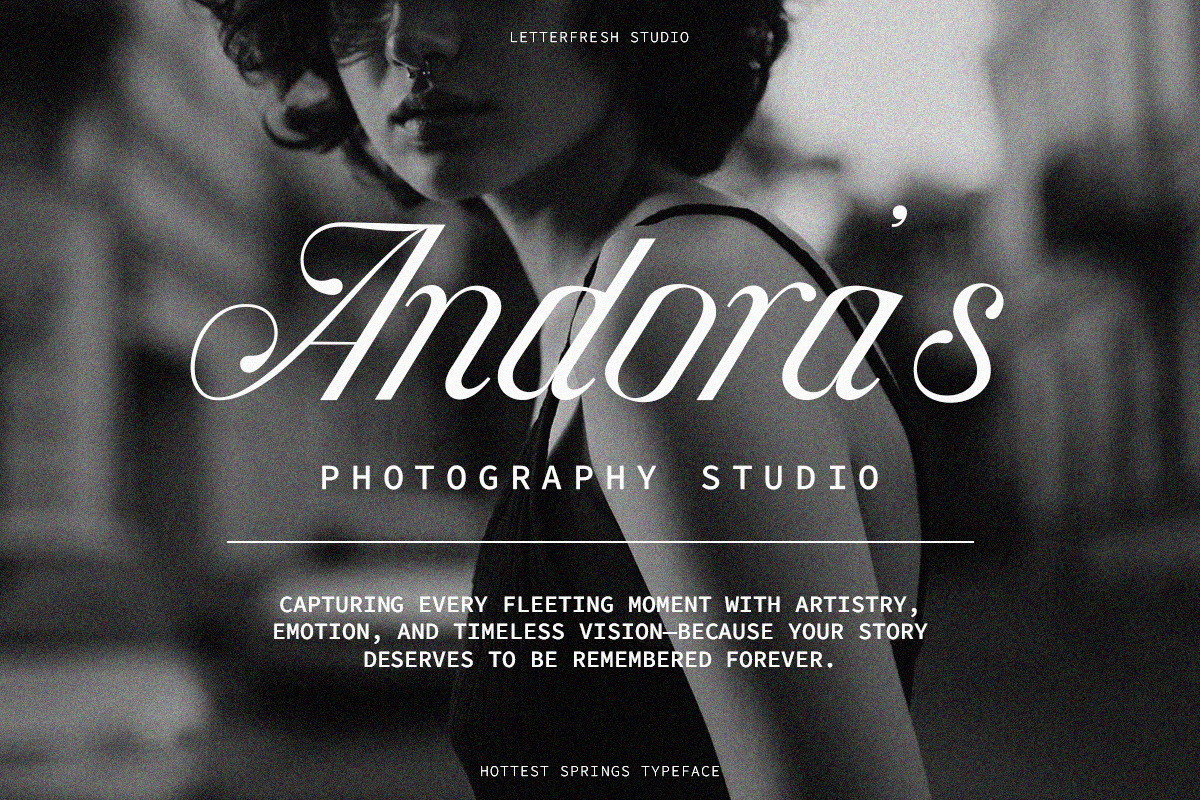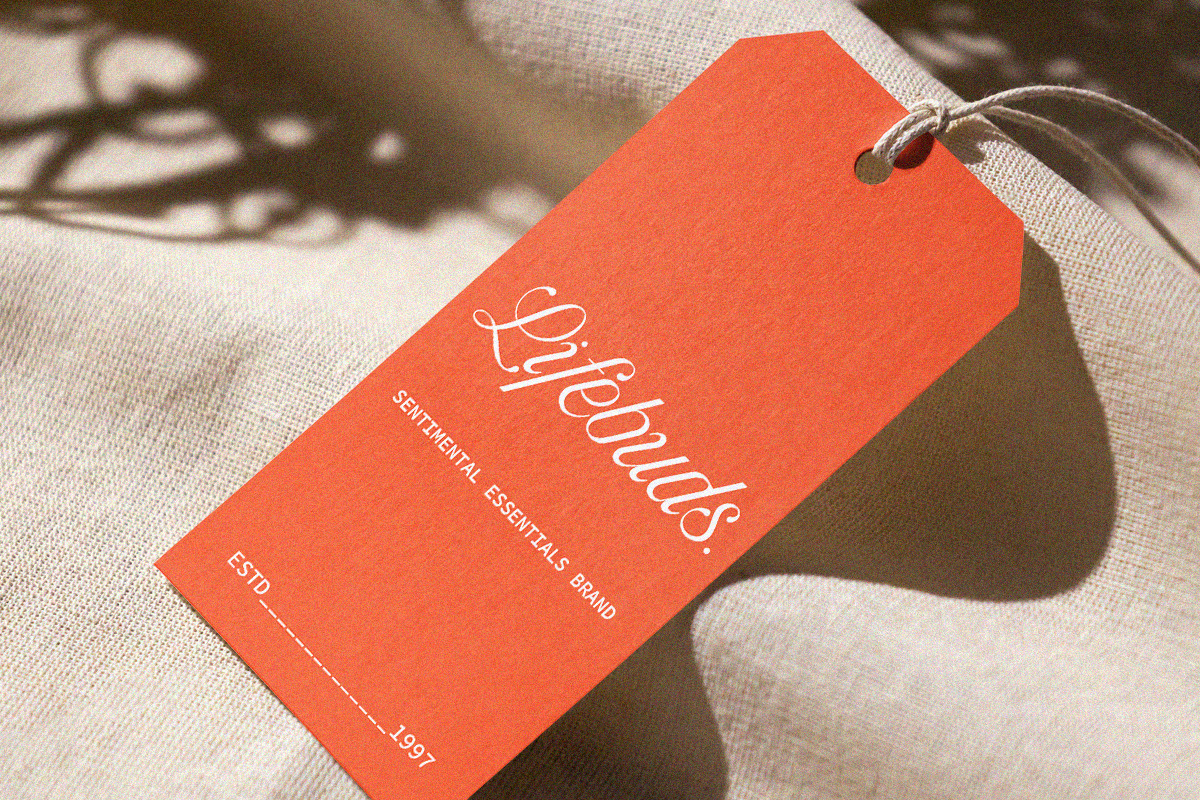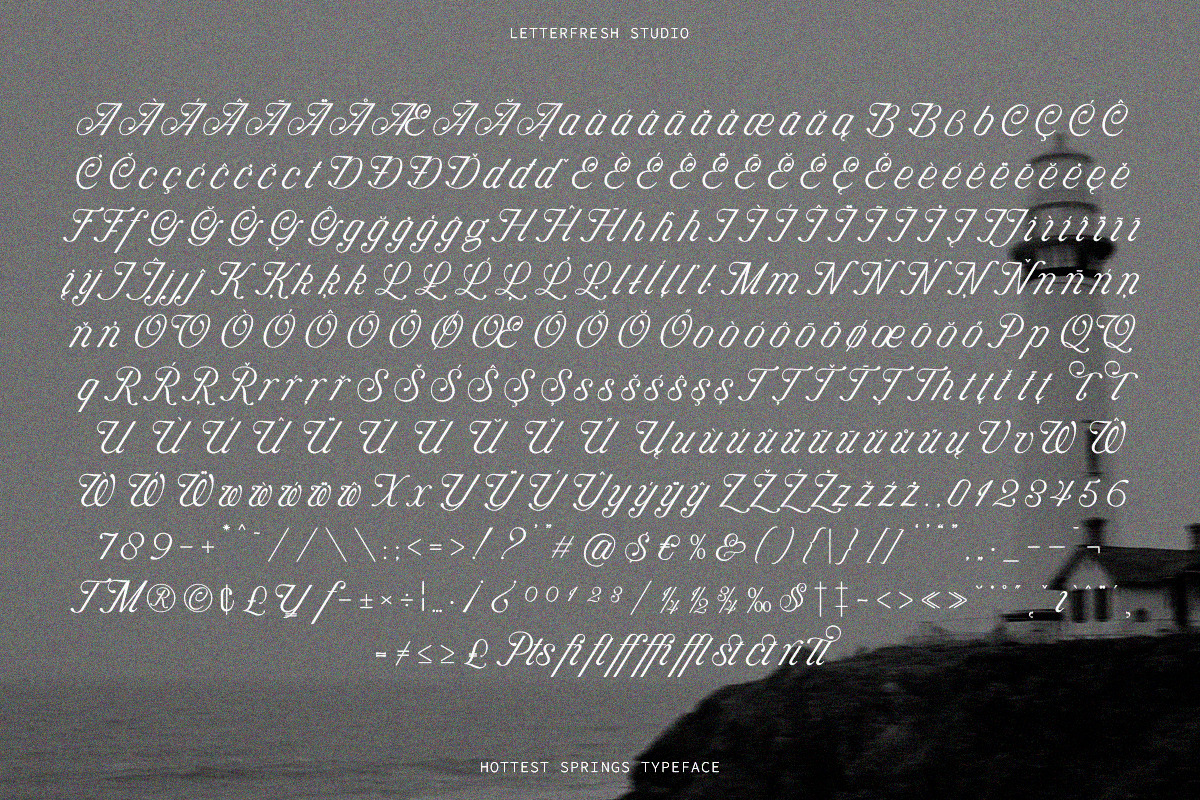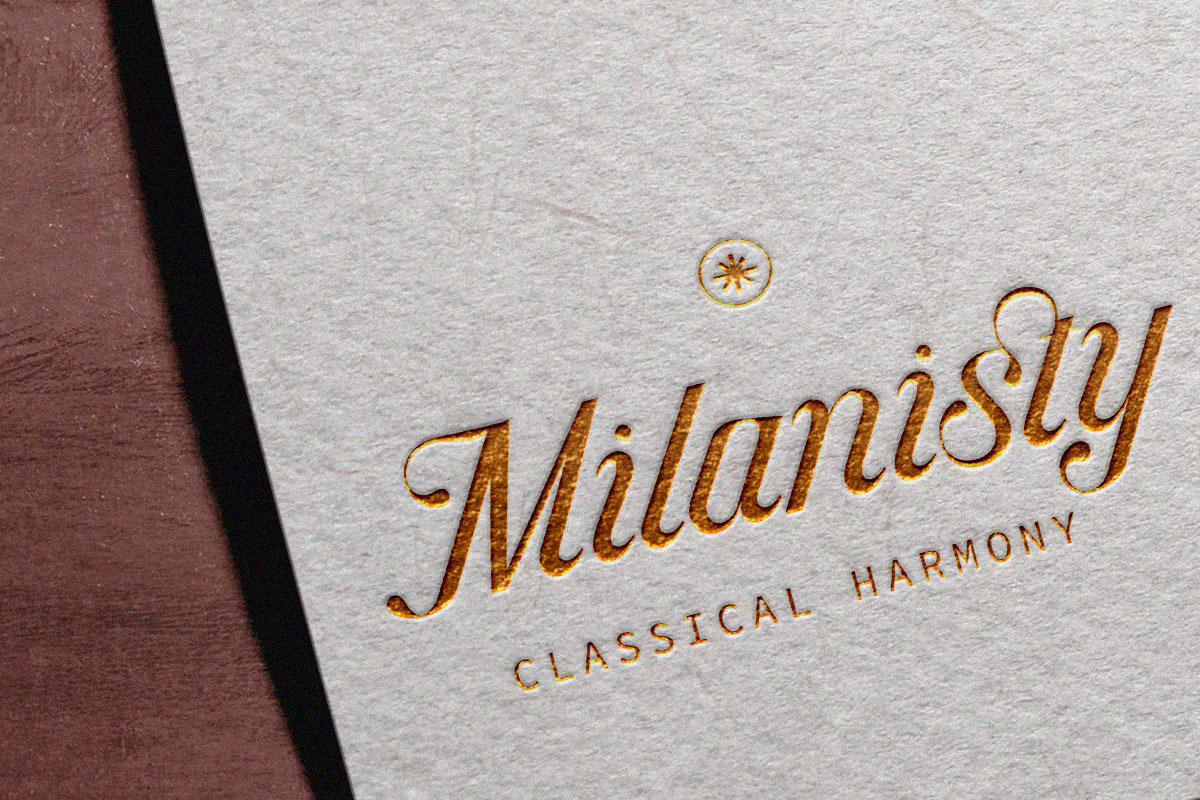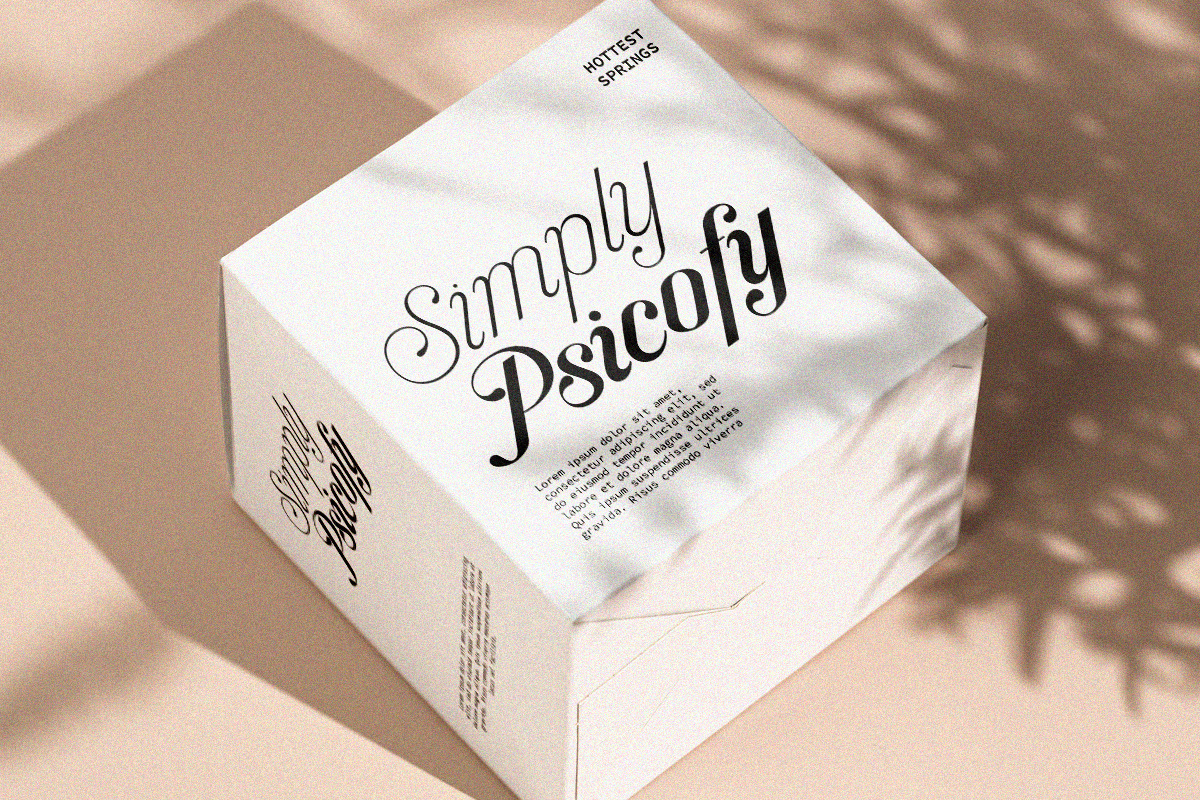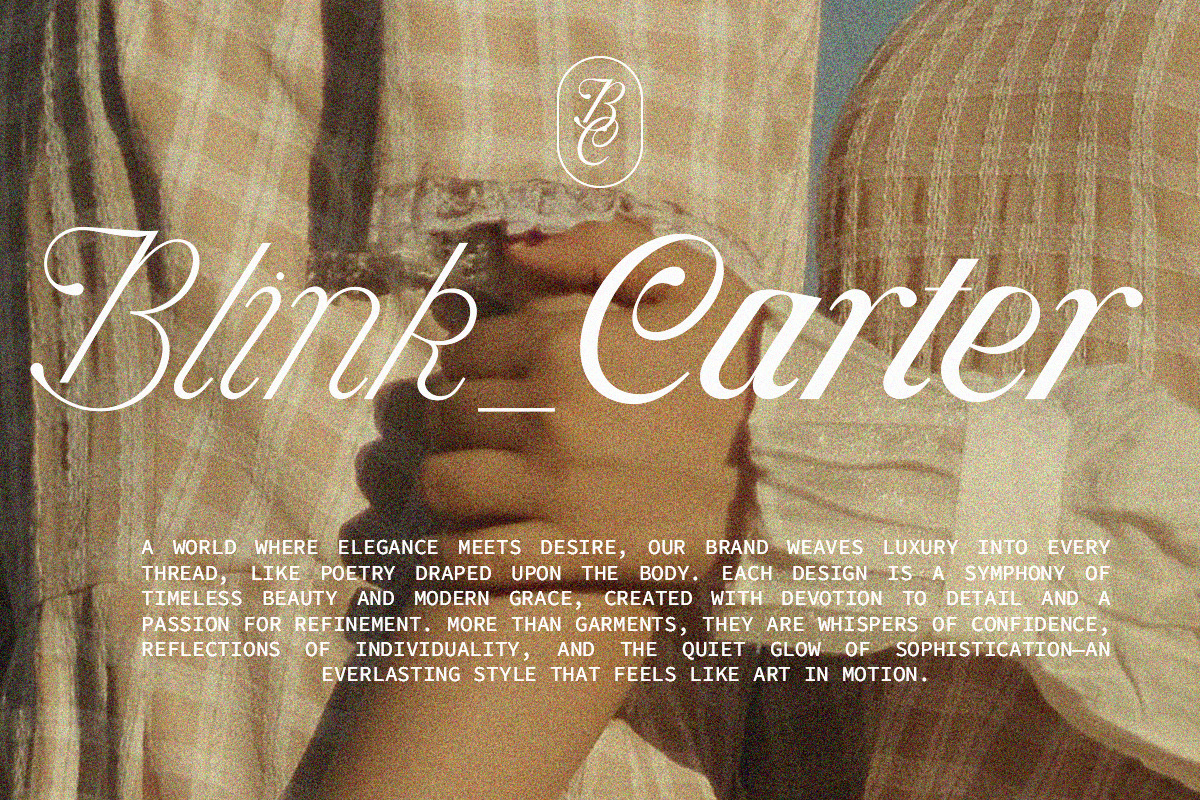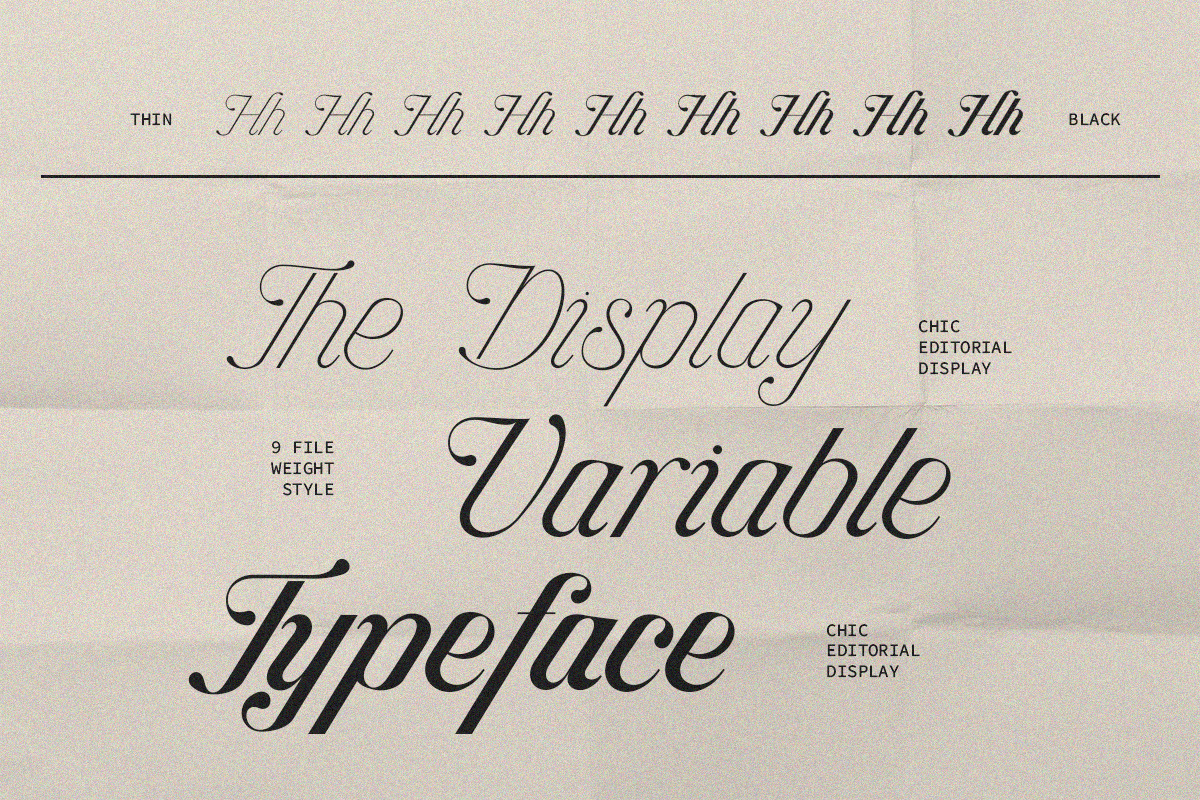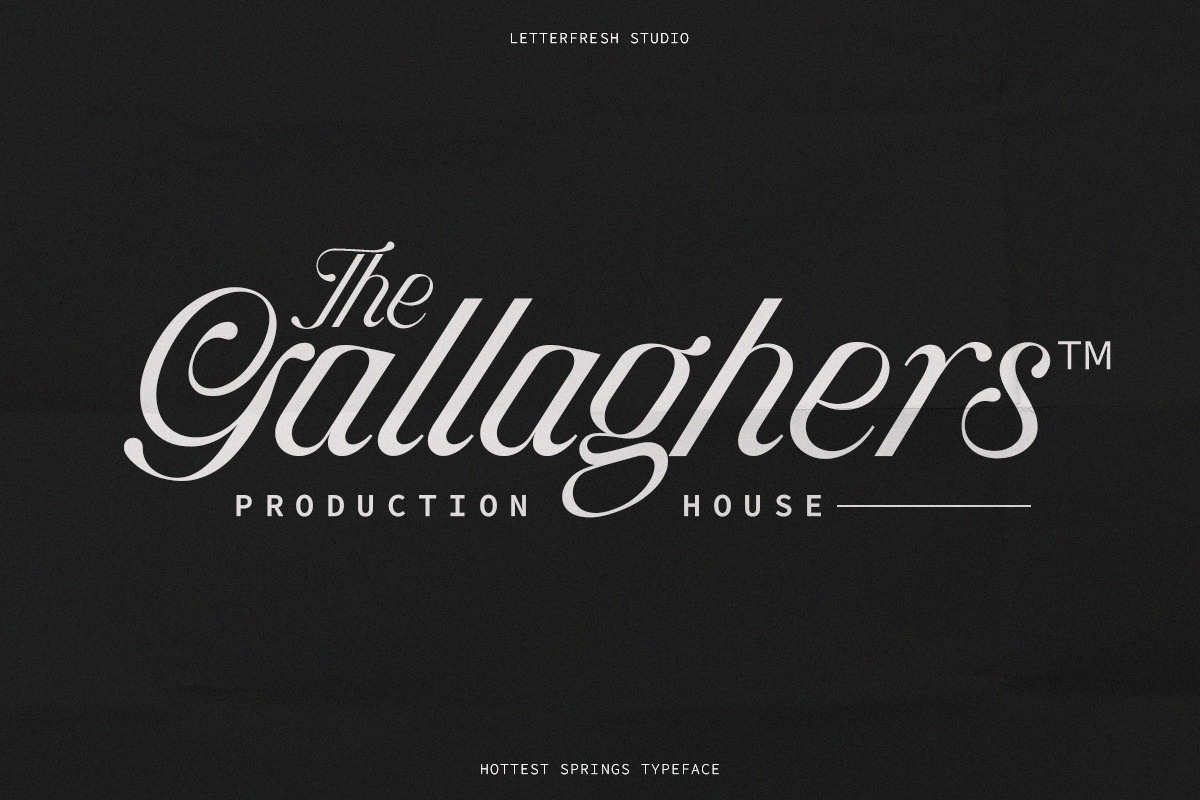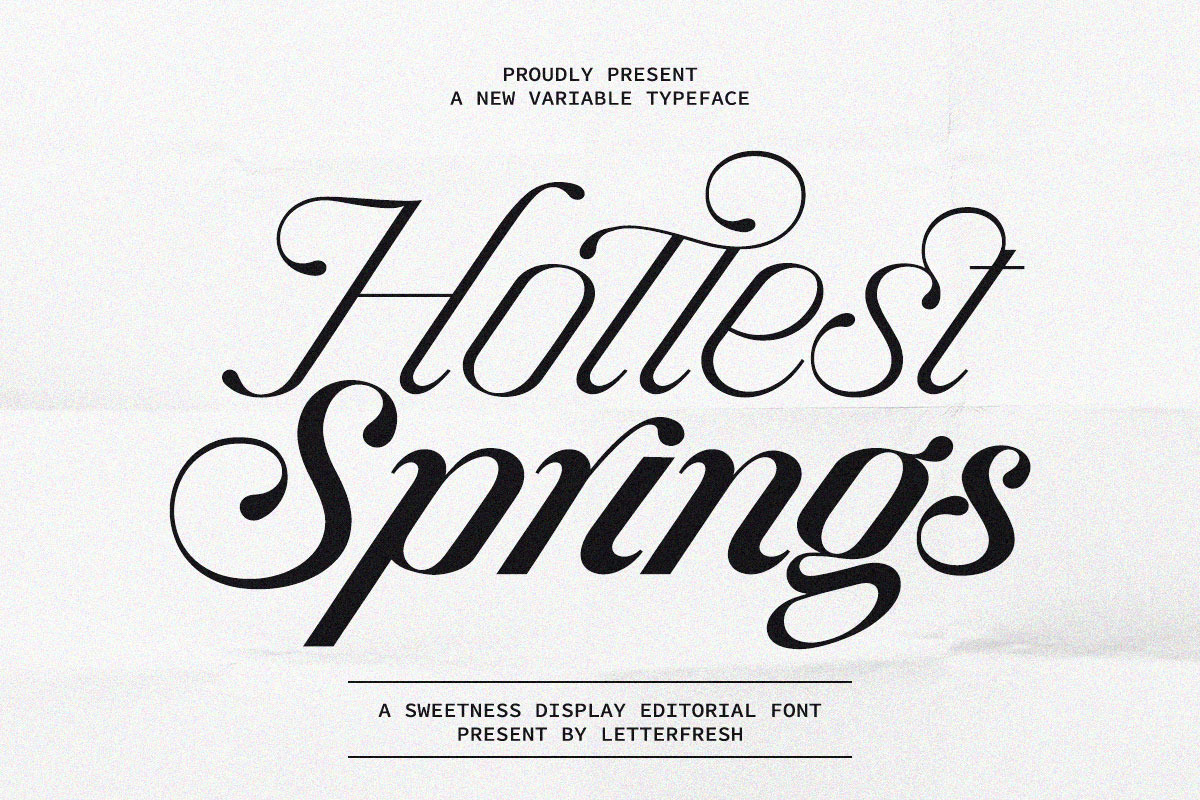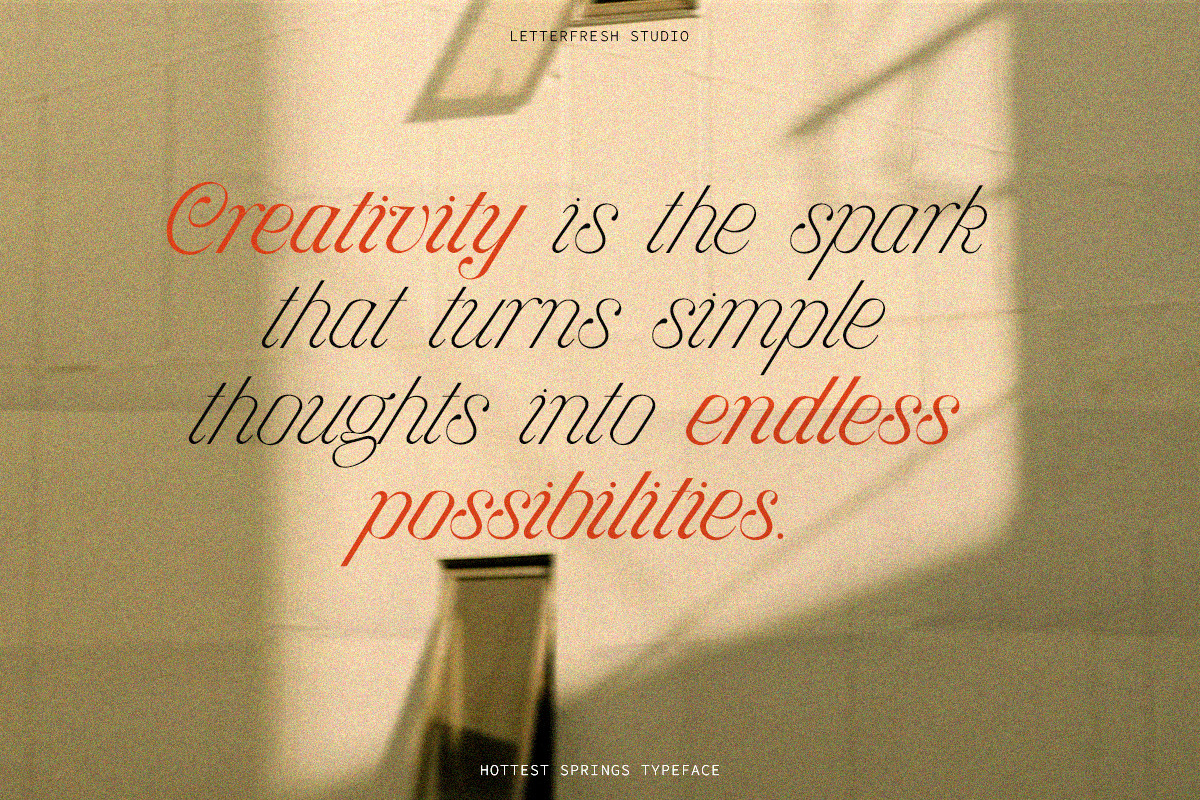
Hottest Springs Typeface
Meet the romantic and majestic 'Hottest Springs' typeface – a new Calligraphy italic serif with elegant curves and a refined touch – designed to captivate you with its elongated strokes, exaggerated curves, and decorative touches.
The letterforms are highly stylized with ornate strokes and delicate flourishes, reminiscent of classic handwritten script.
Its fluid nature and careful balance of thick and thin strokes make it ideal for high-end branding, book covers, or prestigious invitations. Despite its decorative elements, this typeface maintains a strong sense of legibility, thanks to its structured shapes and proportional letter spacing.
Perfect for… Luxury branding, such as fashion labels, perfumes, or premium event invitations. Ideal for editorial use, such as book covers, historical fiction, or elegant magazine letterheads. Suitable for identity design, especially for classic or heritage brands, boutique logos, or exclusive membership-based organizations.
Overall, Hottest Springs blends heritage with modern refinement, creating a timeless yet authoritative typographic look.
OpenType Ligature Alternative: